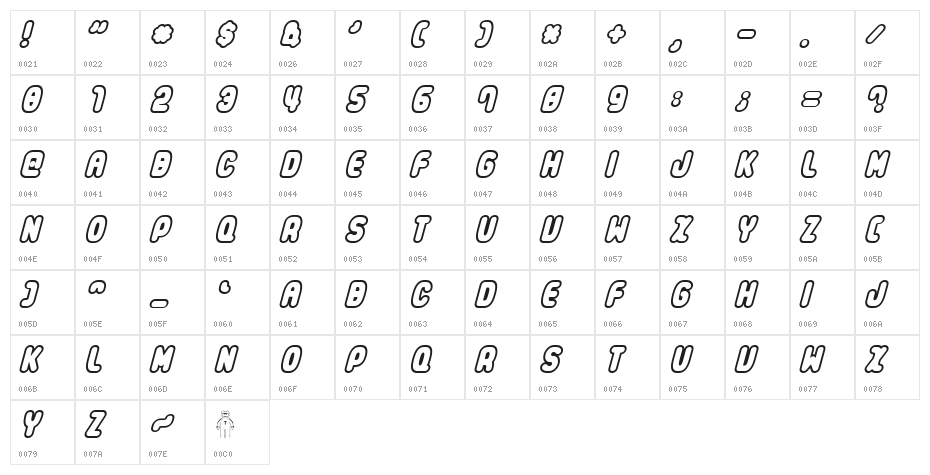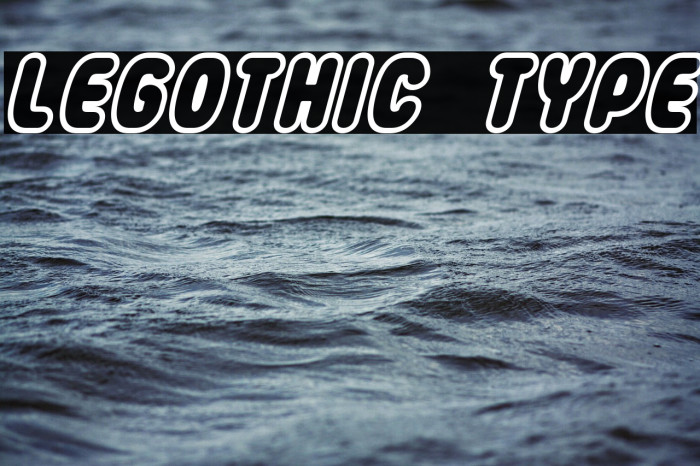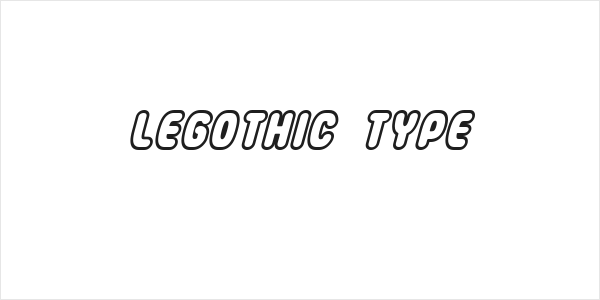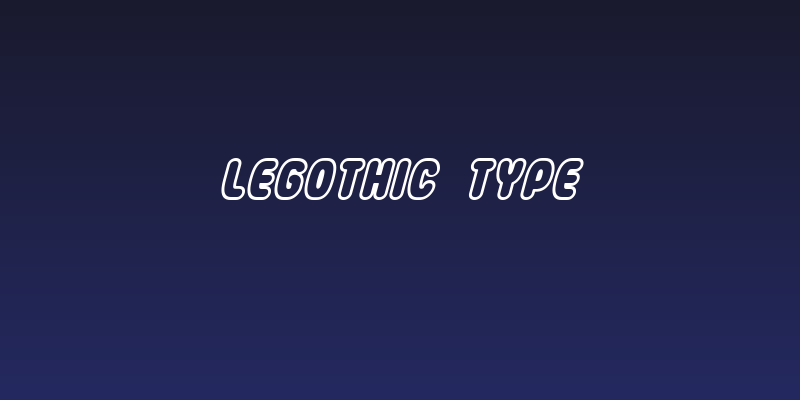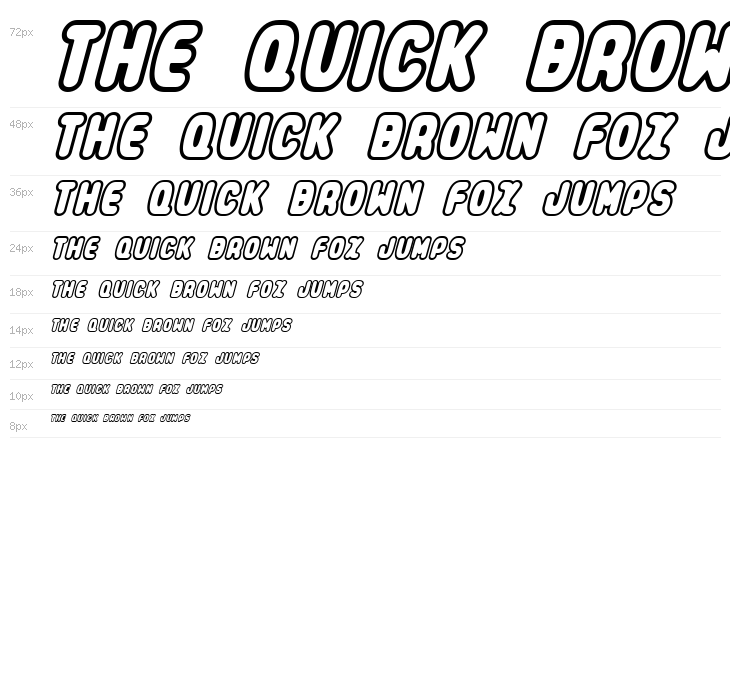
LEGothic Type Font
LEGothic Type Description
This playful and bold font features a unique bubble-like outline that gives it a fun and dynamic appearance. The characters are rounded and thick, with a consistent stroke width that maintains uniformity across both uppercase and lowercase letters. The numbers and special characters follow the same design principles, ensuring a cohesive look. The font's style is reminiscent of comic or cartoon aesthetics, making it ideal for creative and informal applications. Its boldness ensures high visibility, while the rounded edges add a friendly and approachable feel.
| Overall Style | Playful, Cartoonish |
| Proposed Projects | Ideal for children's books, comic strips, playful branding, and event posters. |